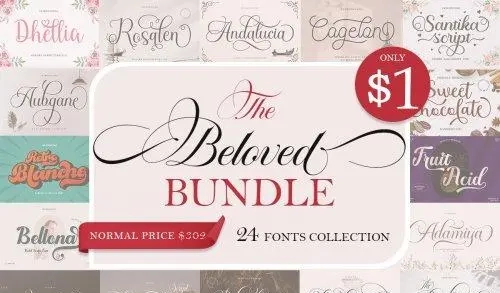
The Beloved Font Bundle
The Beloved Font Bundle is a carefully curated collection of high-quality fonts, perfect for a variety of design projects. This bundle includes a diverse range of font styles, from elegant serifs to modern sans-serifs, ensuring that you have the right typography for any occasion.
• Multiple font styles: serif, sans-serif, script, and display fonts
• Various weights and styles for flexibility in design
• Serif Fonts: Ideal for formal branding and print materials
• Sans-Serif Fonts: Great for web design and modern branding
• Script Fonts: Perfect for invitations, logos, and artistic projects
• Display Fonts: Eye-catching options for headlines and posters
• Utilize serif fonts for print materials to convey professionalism
• Choose sans-serif fonts for a clean and modern look on websites
• Incorporate script fonts for a personal touch in invitations and greeting cards